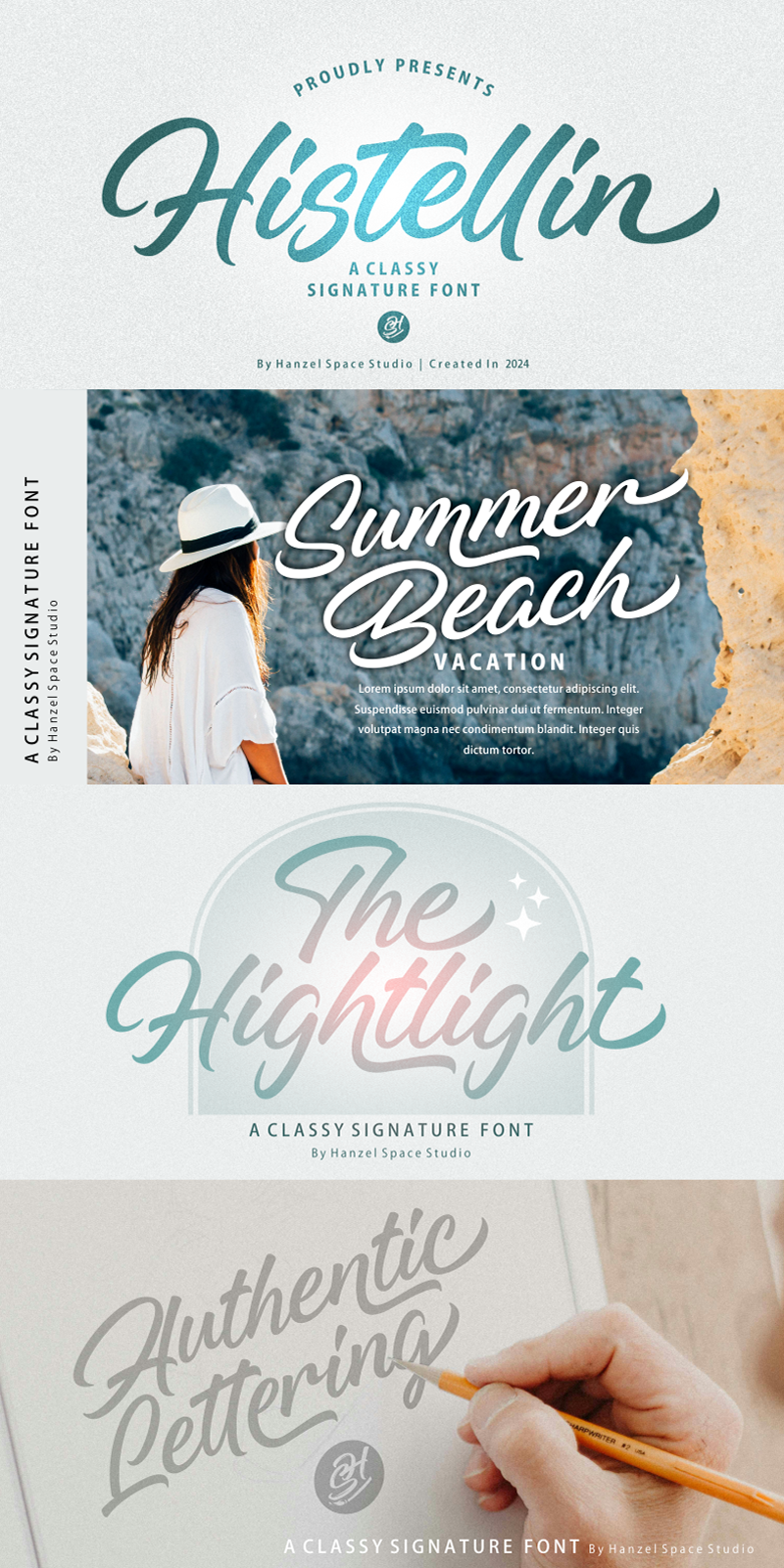
Histellin | A Classy Signature Font Font
About Histellin | A Classy Signature Font
Product Description :
Are you looking for a modern trandy script font? Do you want to create something that stands out and inspires
endless creativity, imagination and fun? What are you waiting for, we will provide the best choice for you.
We present the new font “Histellin” in a modern classic style, with characteristic curves so that each letter has its own character. With this font product, you can easily apply it to each of your design works.
This font was created to help you designing logotype or lettering style logo for your Brand or your clients, and you also can use it for designing all of the graphic stuff such as badge, sign, packaging, headline, title, T-shirt/apparel,bPoster, etc.
Histellin was designed for personal characters such as strong, confidence, dynamic, readable, Energic, dynamic, etc.
– Full Set of standard alphabet and punctuation
– Multilingual Characters (ÁÂÄÀÅÃÆÇÐÉÊËÈÍÎÏÌÑÓÔÖÒØÕÚÛÜÙẂŴẄẀÝŶŸỲ áâäàåãæçðéêëèíîïìñóôöòøõœúûüùẃŵẅẁýŷÿỳ€£¥)